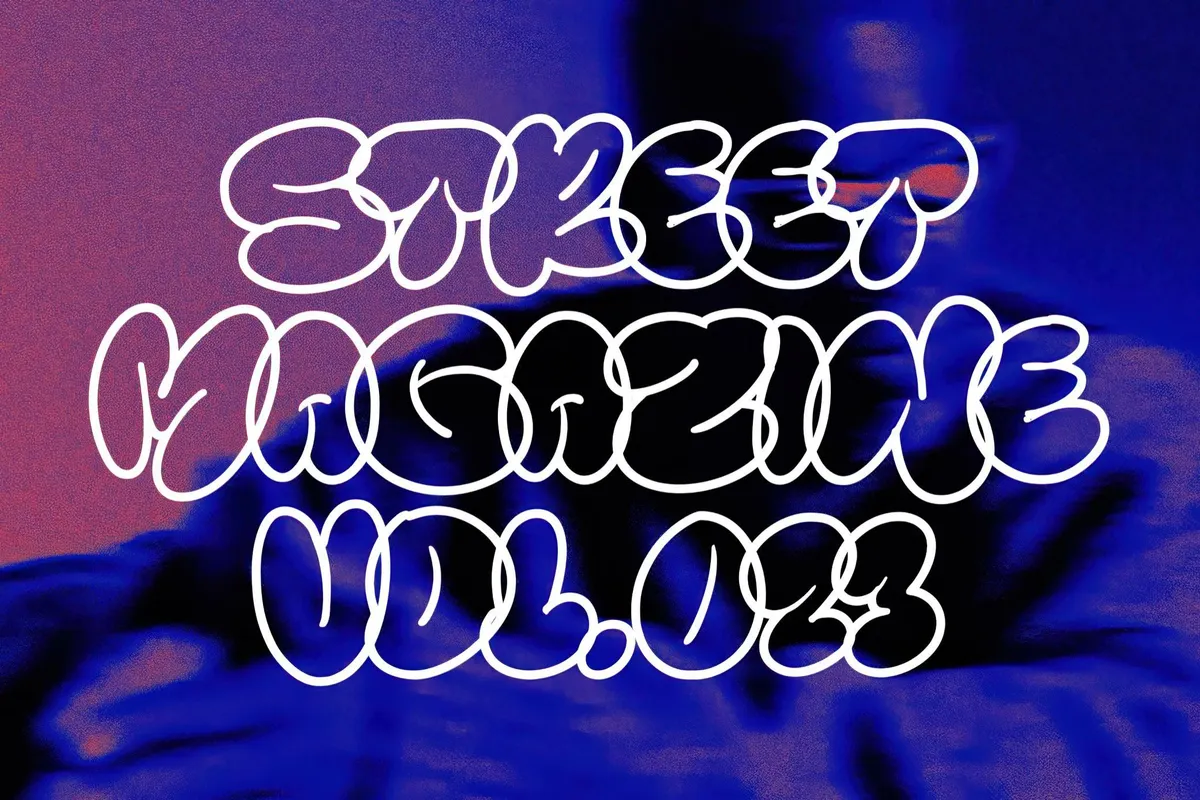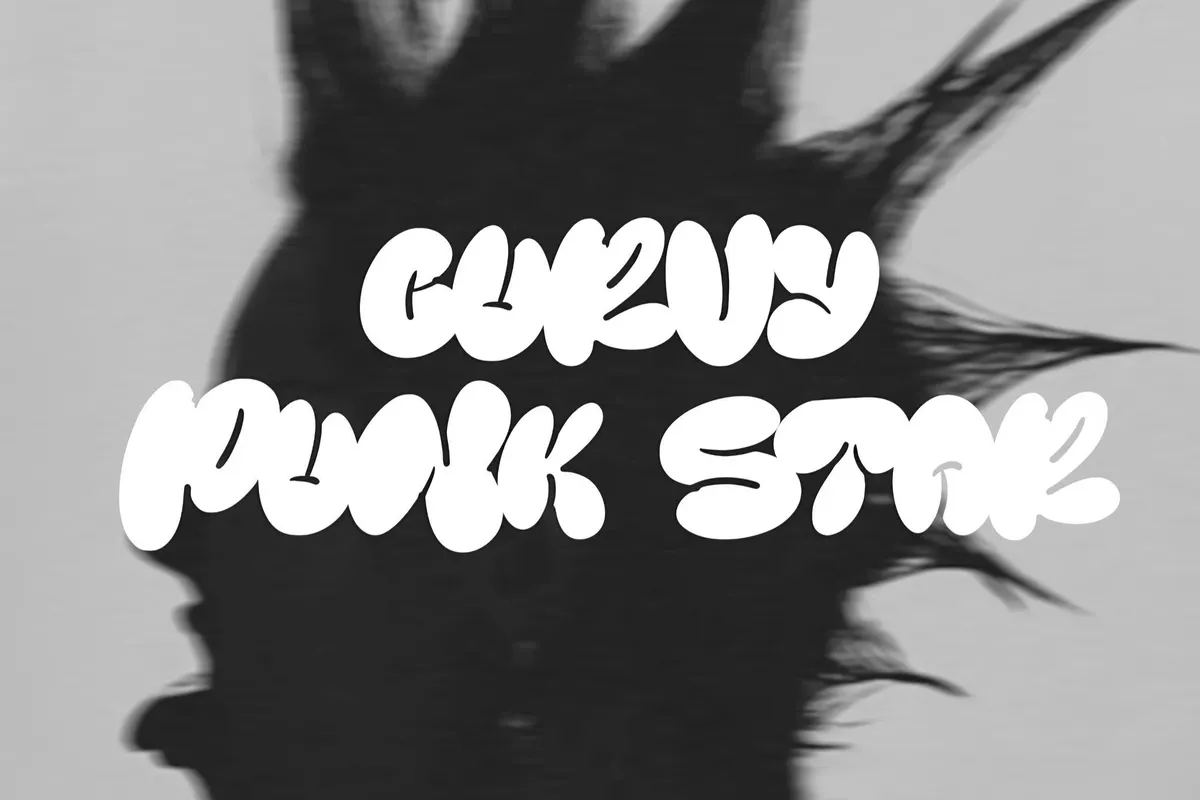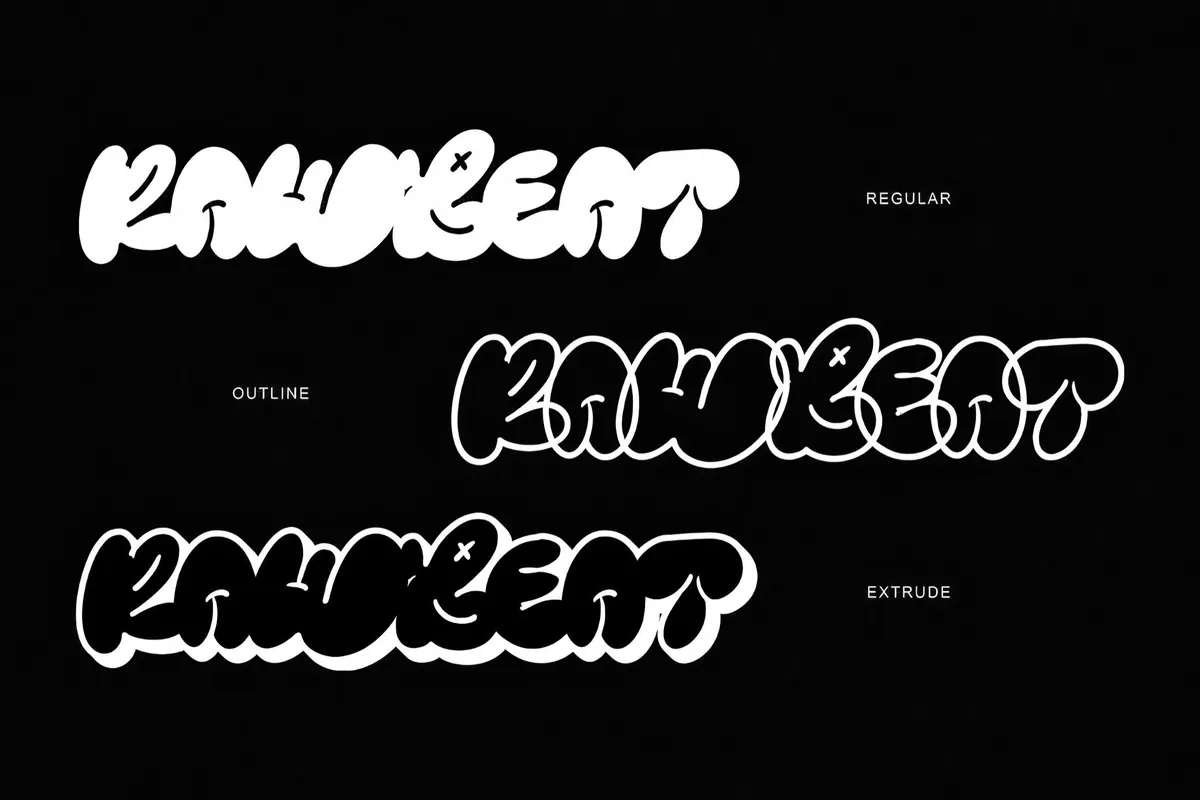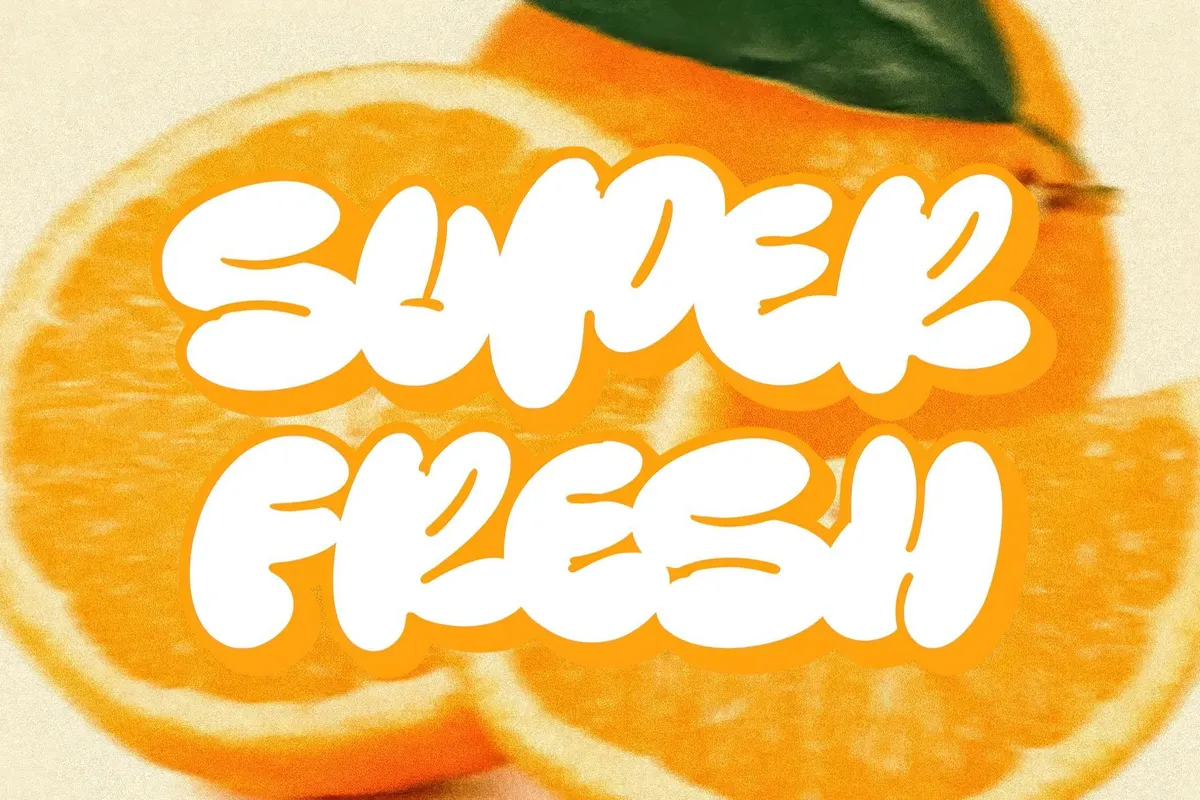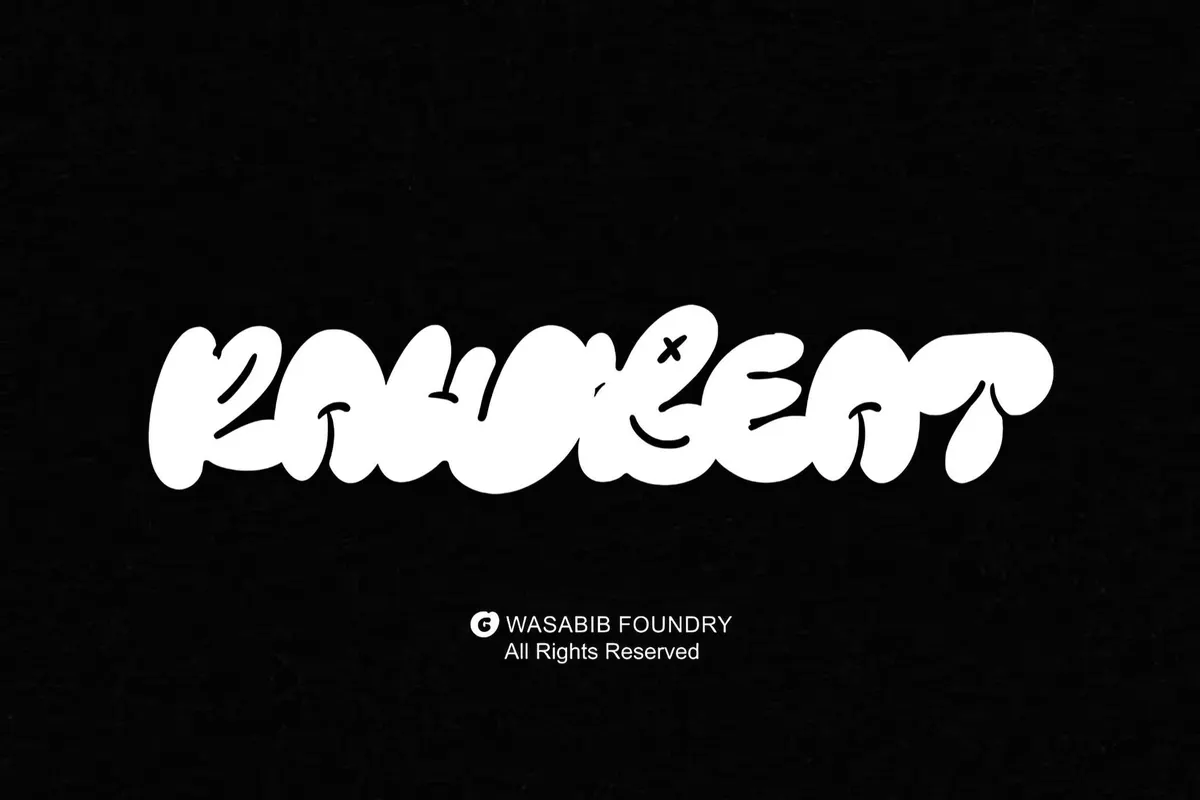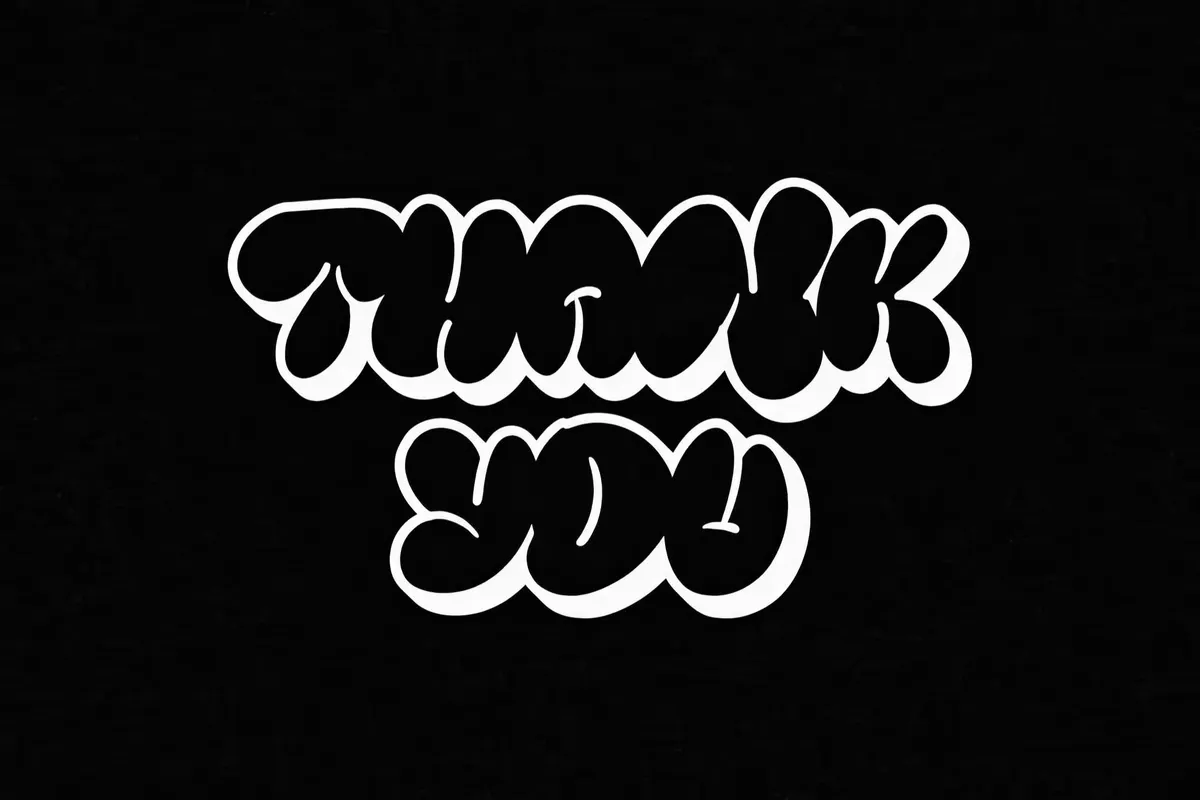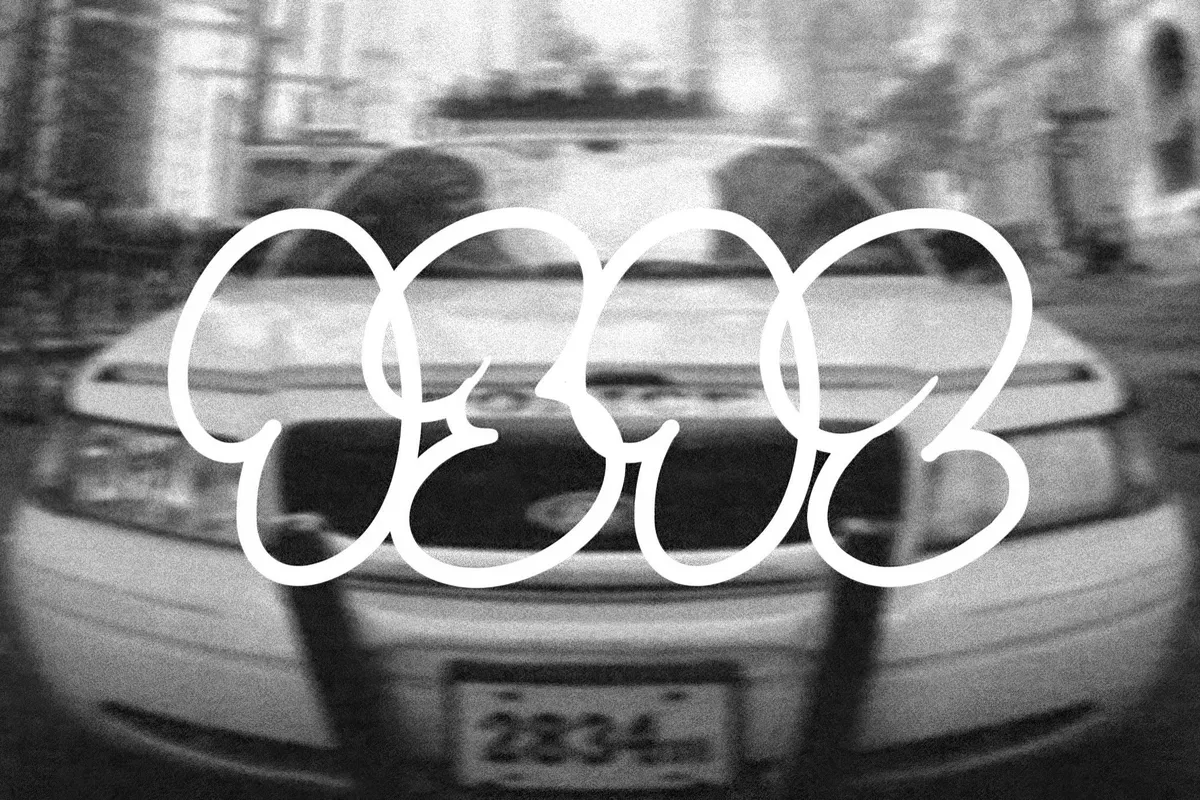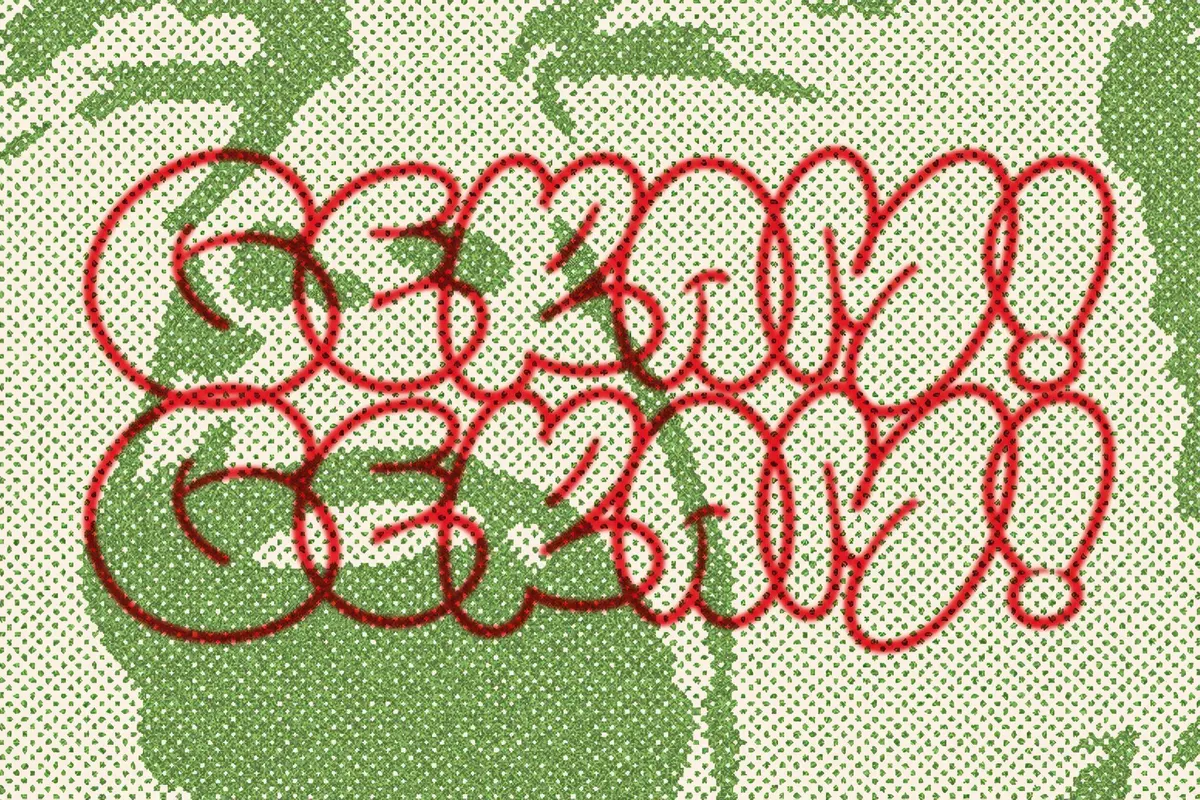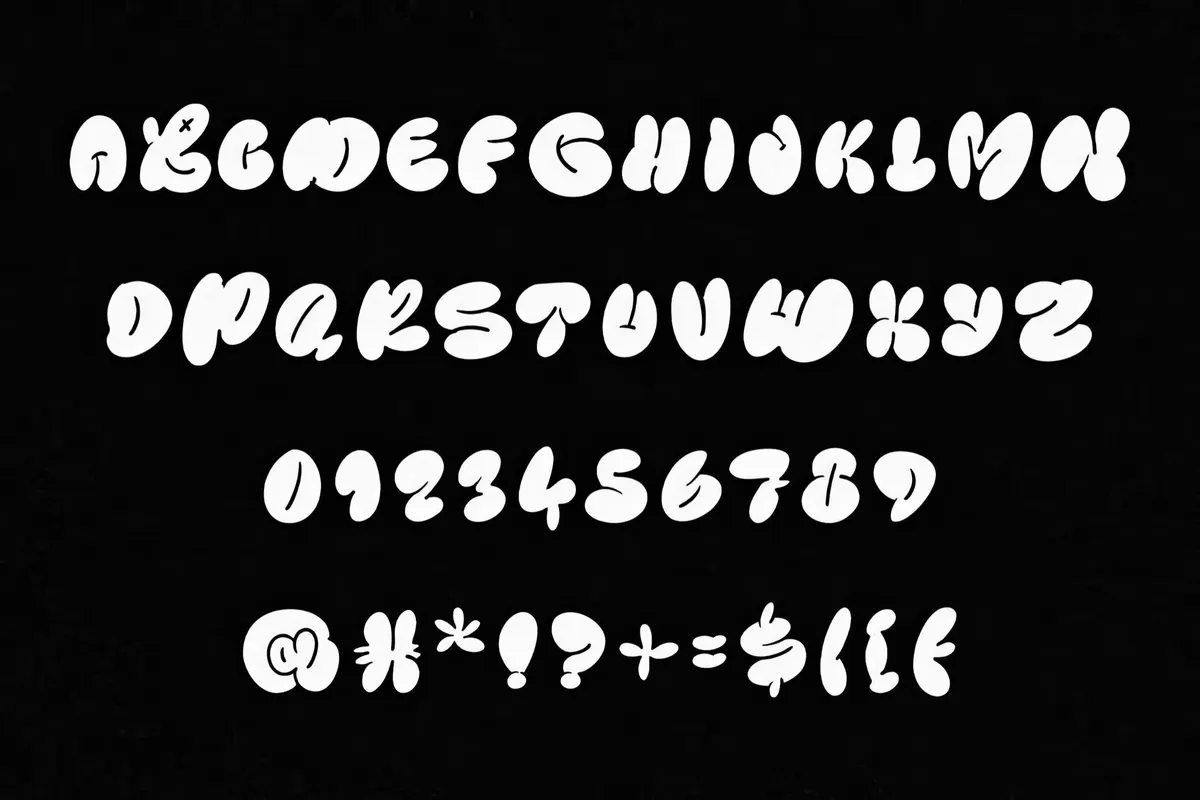
WTF Rawbeat — Display Font
Alright, you want edge? Let’s crank it up. This font isn’t here to play nice — it’s the visual equivalent of blasting your favorite song through busted speakers in the middle of a concrete jungle.
If you're tired of those basic fonts that just don't hit right, the Rawbeat is the choice — pure graffiti energy, dripping with attitude and straight-up defiance. It comes in 3 styles (regular, outline, and extrude). All caps, because lowercase letters are for a whisper, you know. Of course, numerals and symbols are packed in too to fully express that rebellious energy. And channel authentic hand-drawn to look like it was ripped straight from a wall. This isn’t for clean, corporate nonsense — this is for when you want your work to shout out loud.